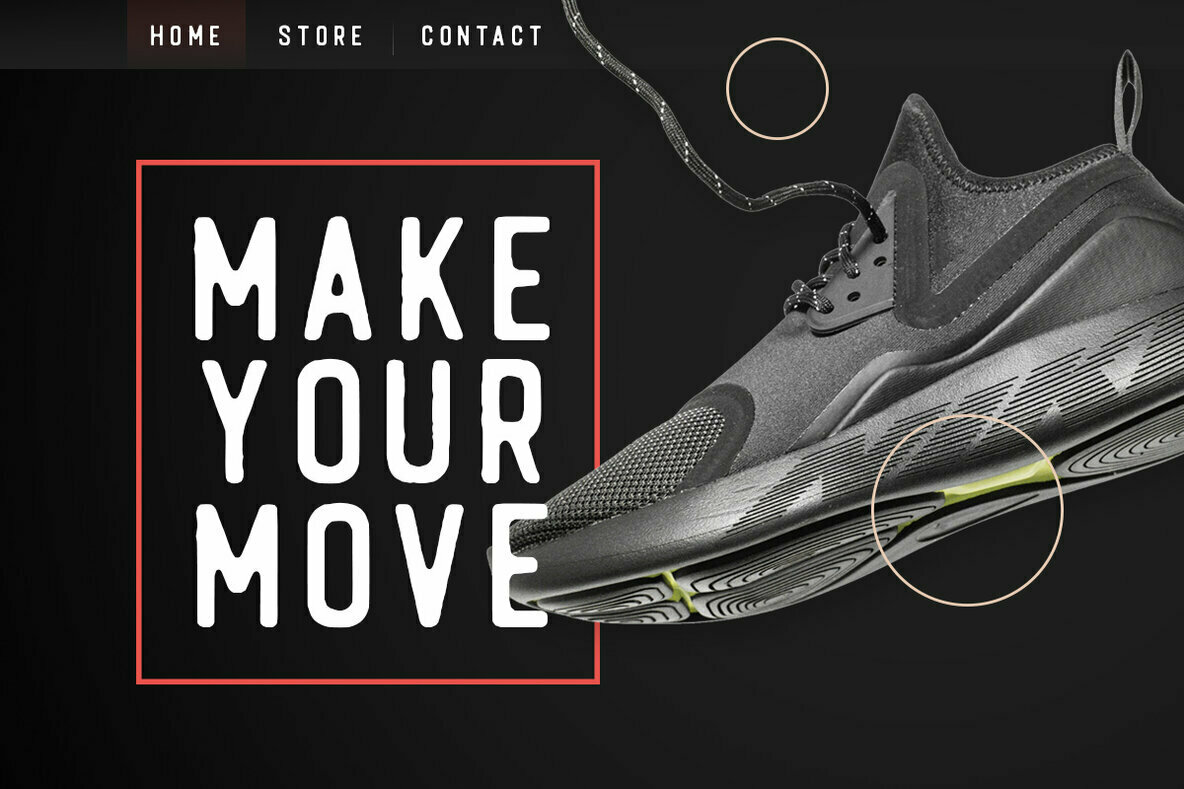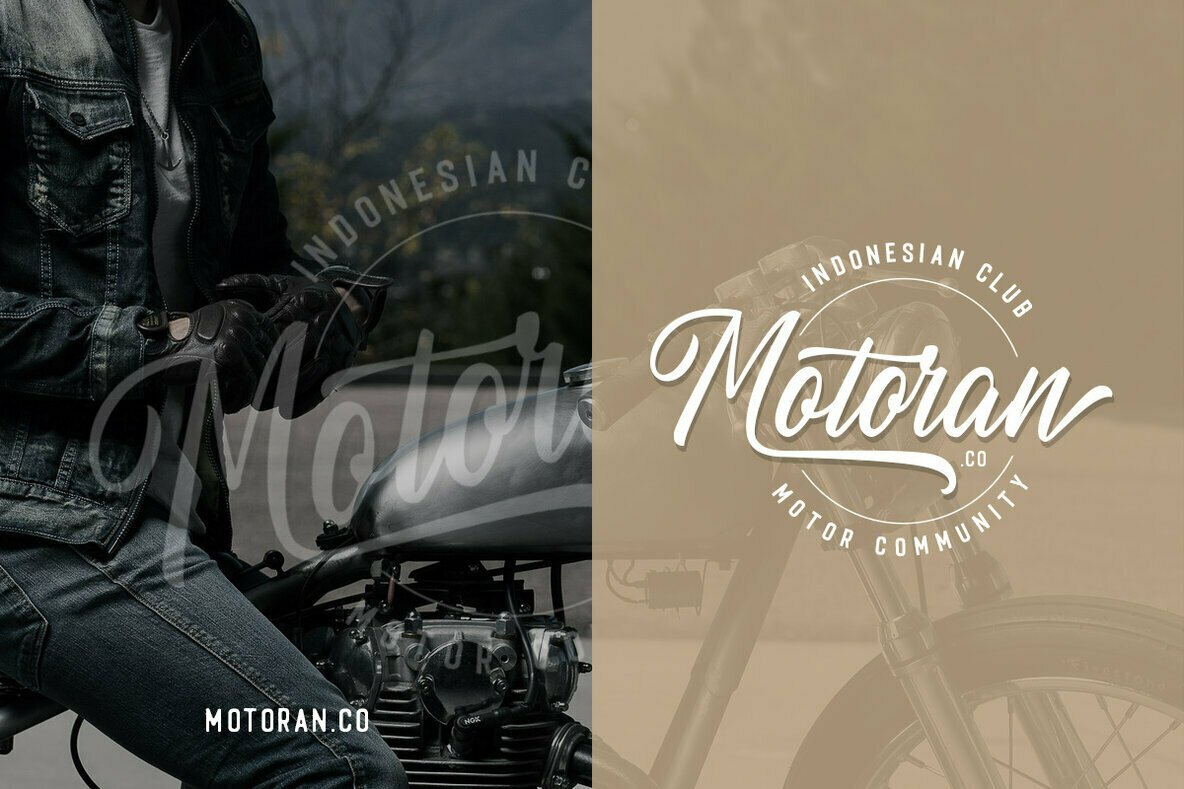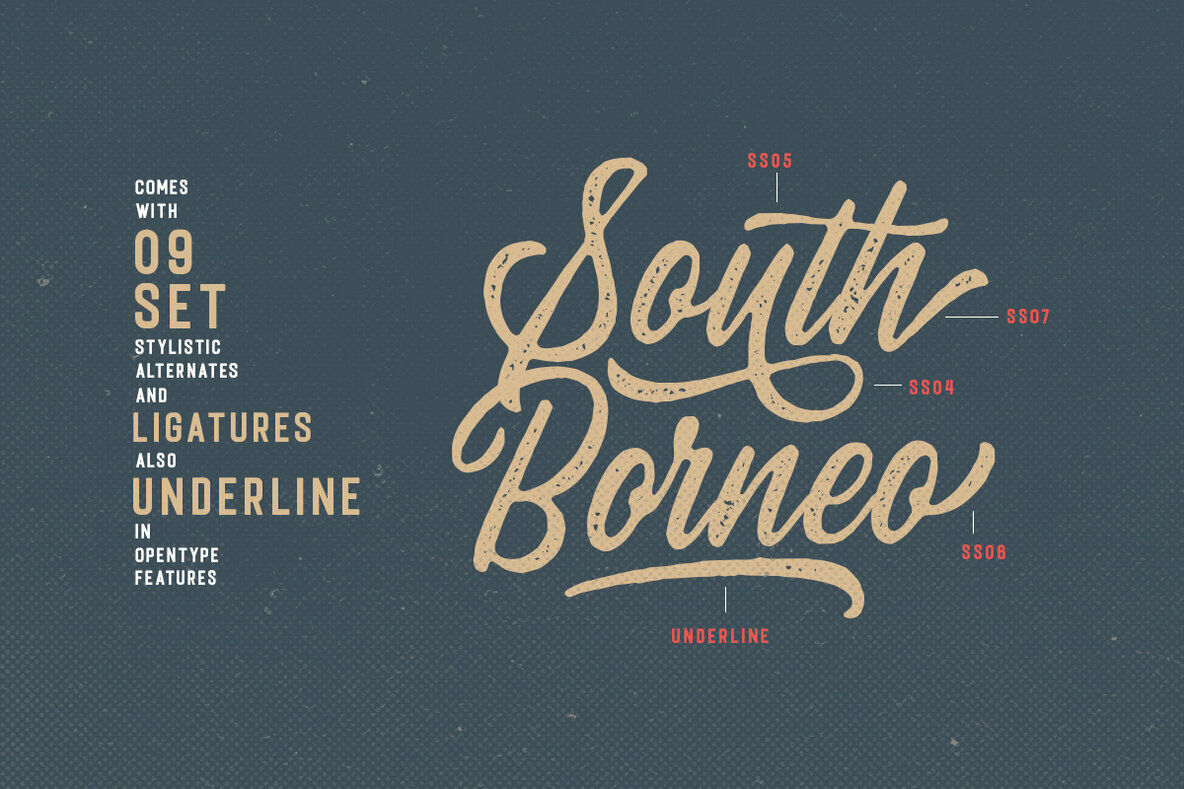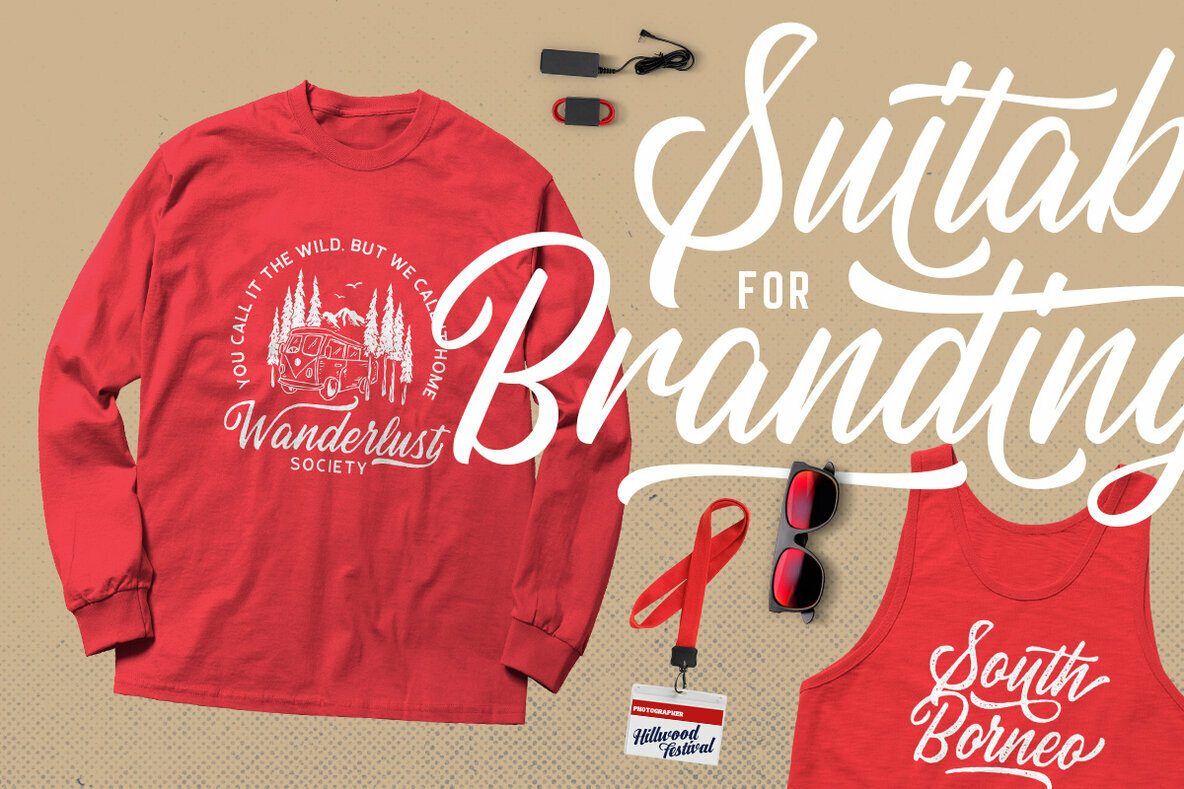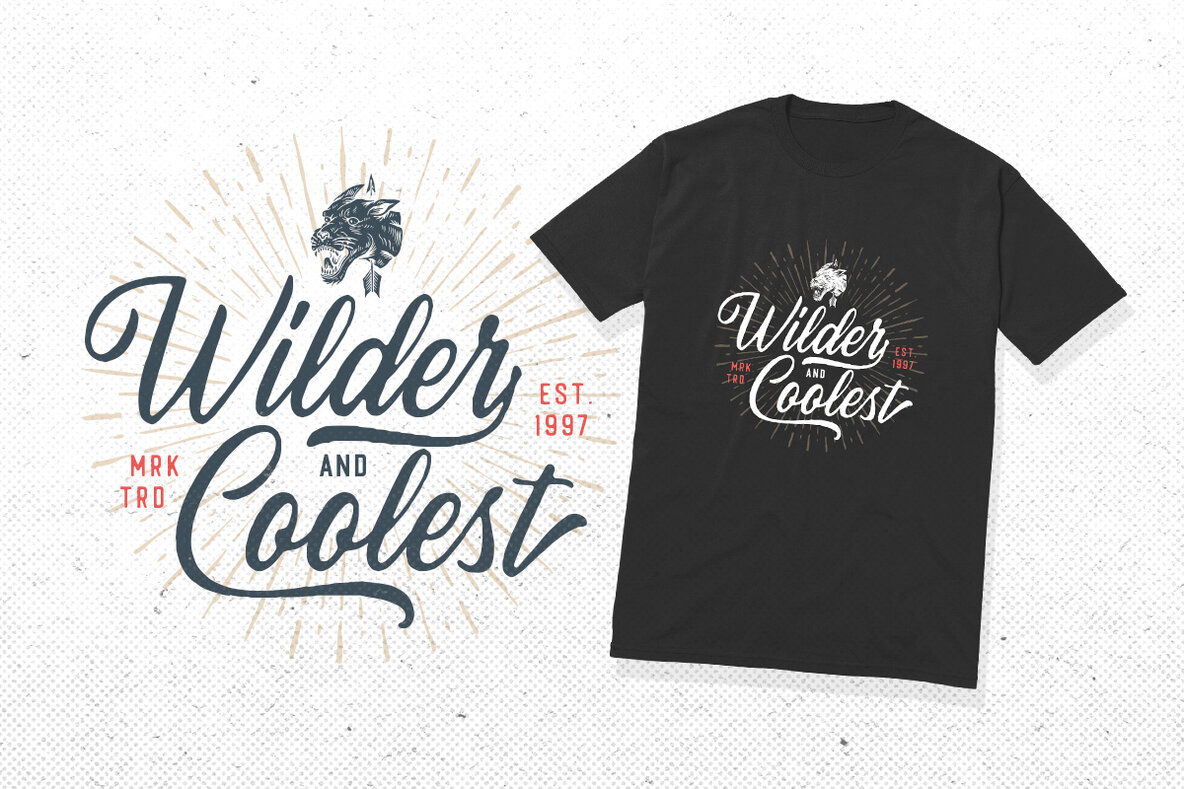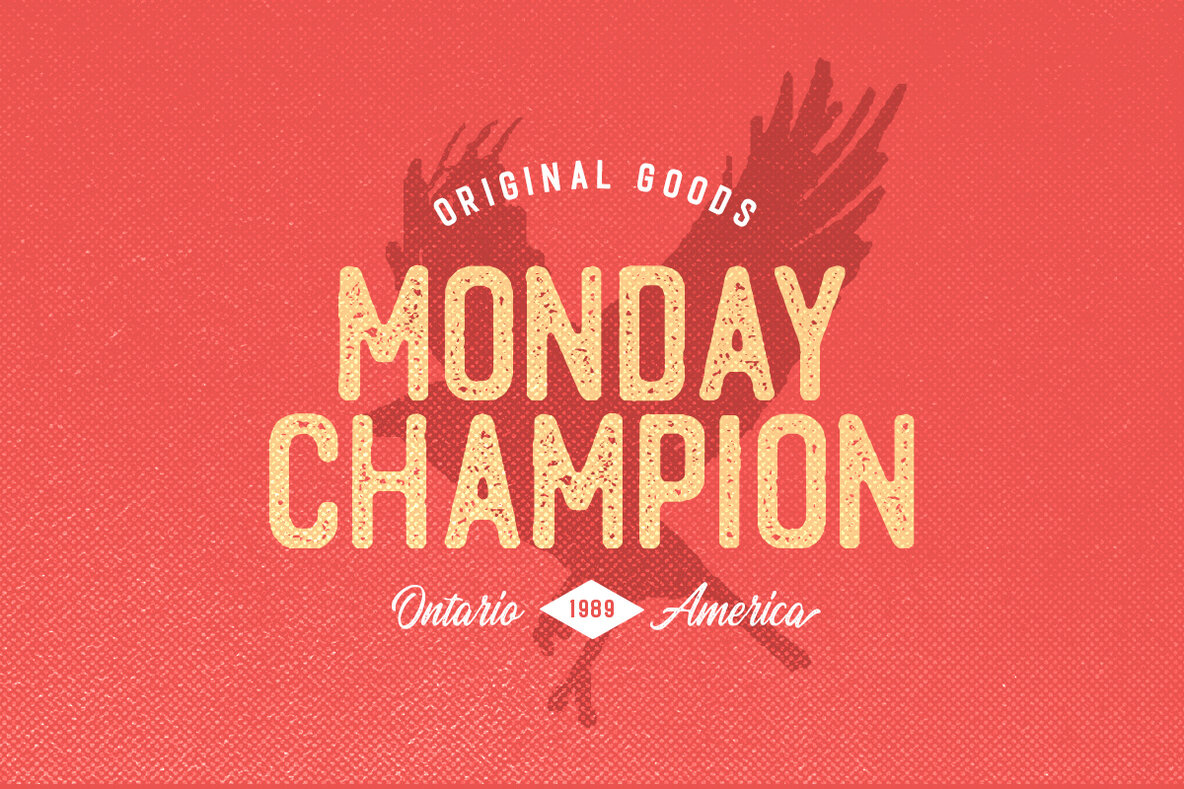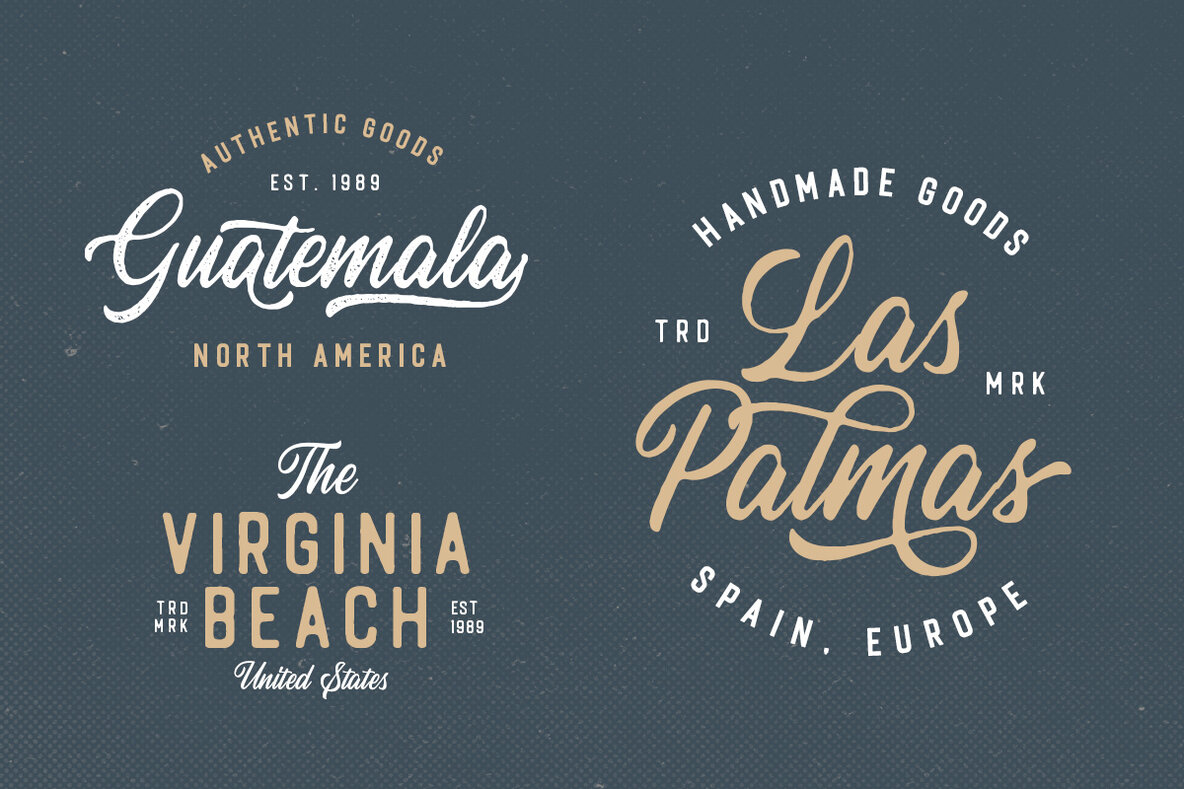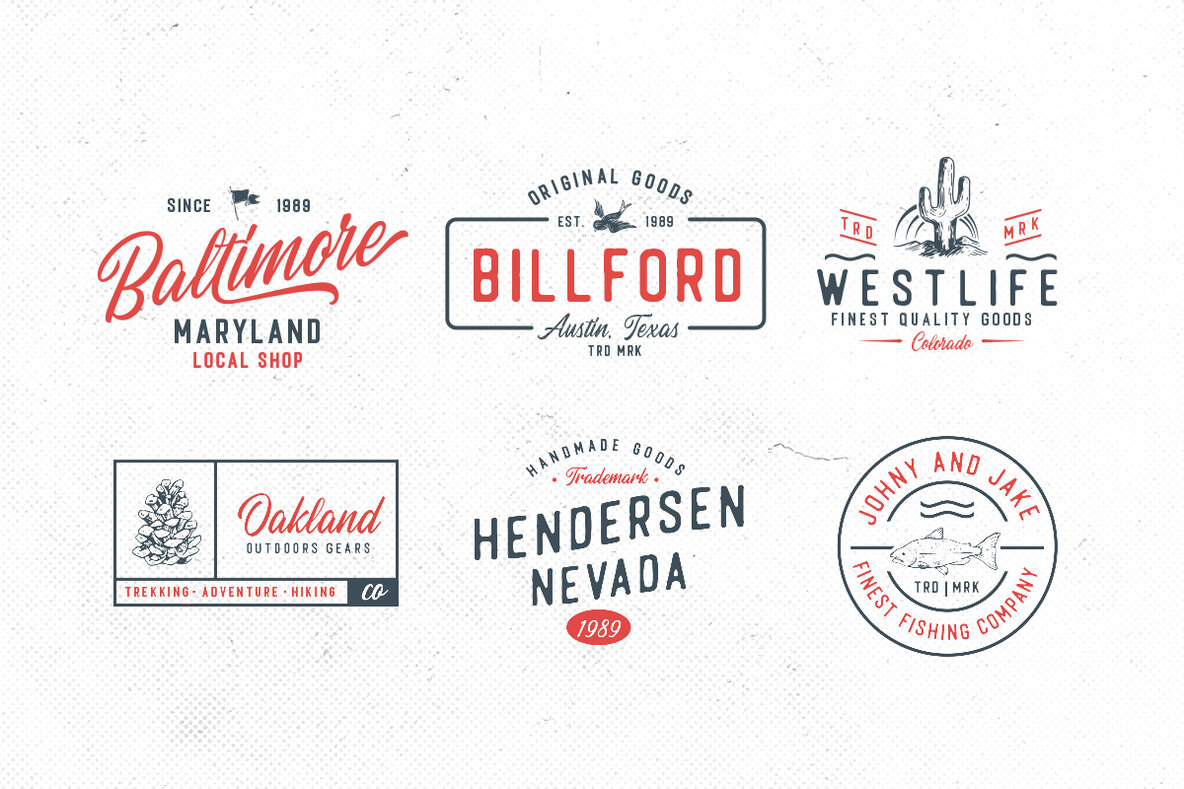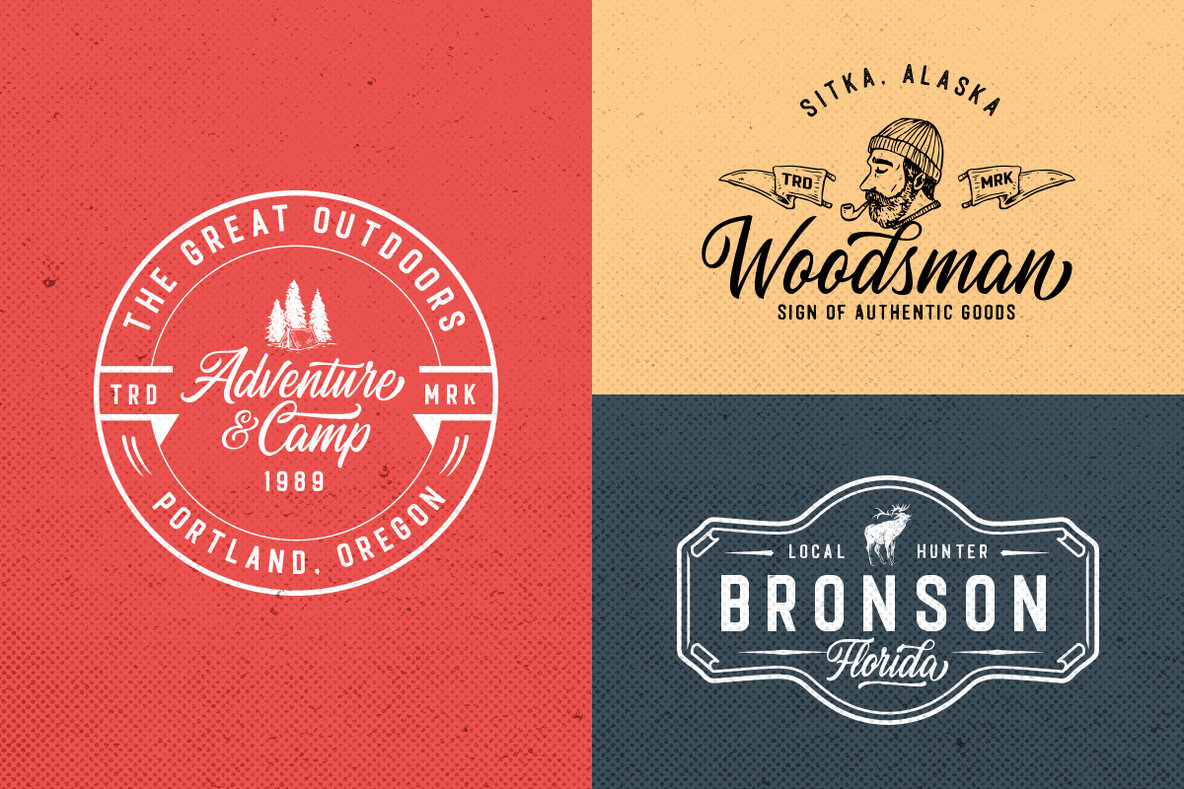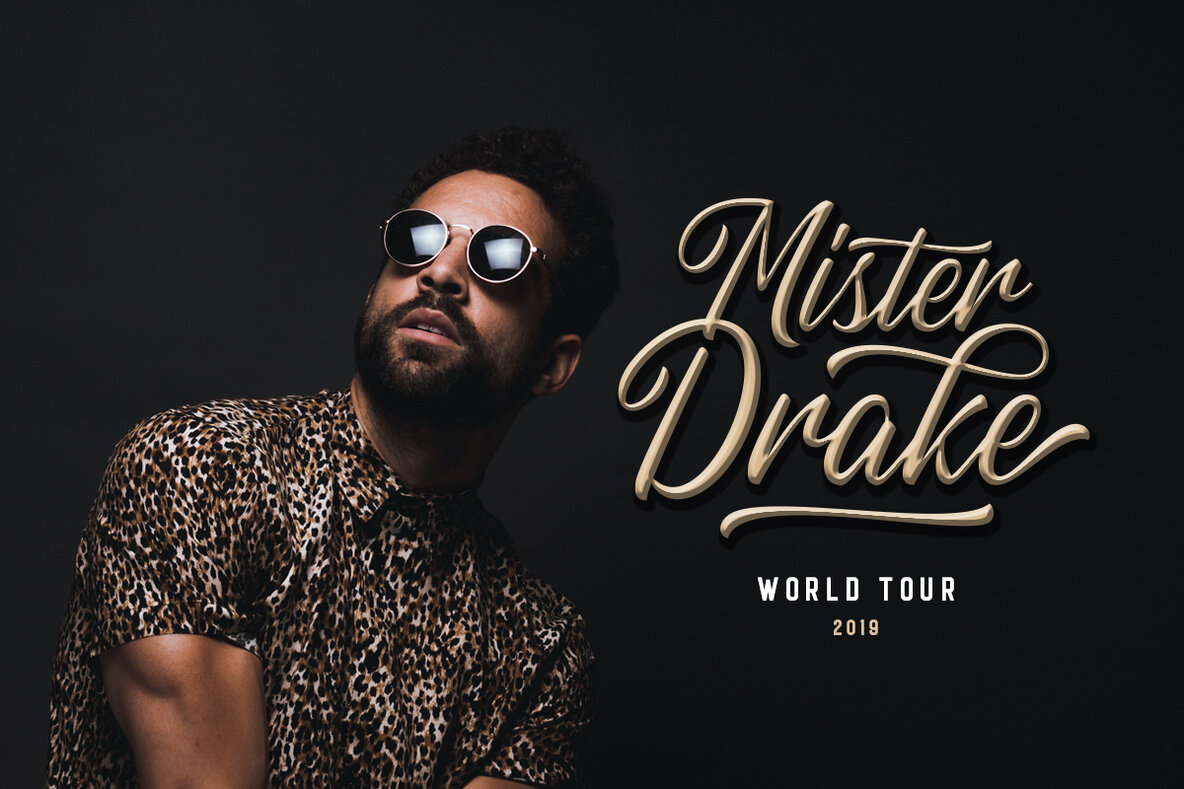
Autogate Font Duo
Autogate Font Duo seamlessly blends script and sans elements, offering a versatile typographic solution perfect for diverse design needs. Its classic aesthetic is ideal for logotypes, apparel design, invitations, branding projects, packaging, and advertising campaigns. The thoughtful combination of script and sans provides a balanced and harmonious design element for creatives seeking elegance and functionality.Autogate Font Duo: A Classic Pairing of Script and Sans